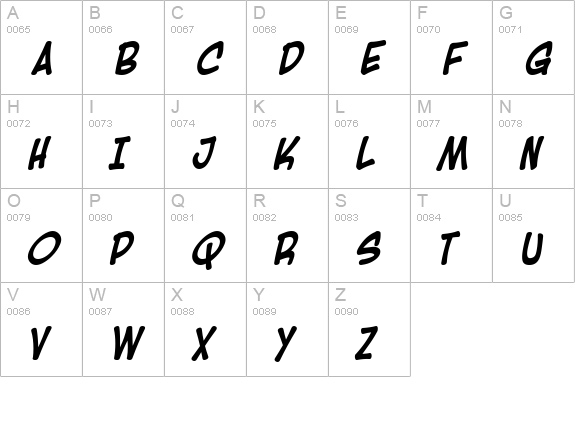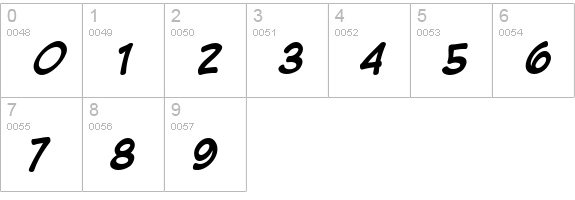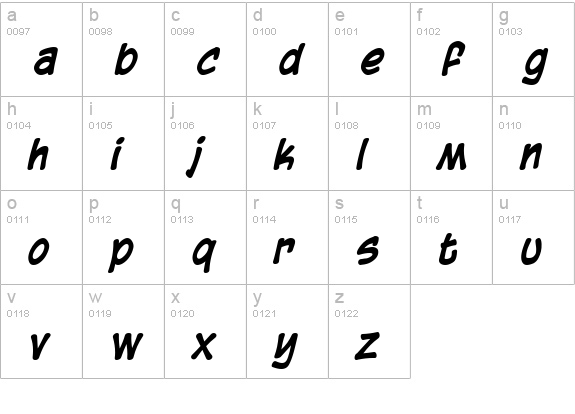
Blambot Casual BoldItalic font is a stylish and versatile typeface that exudes a sense of modernity and playfulness. With its bold and italic design, this font is perfect for creating eye-catching headlines, logos, and graphic designs that demand attention. The smooth curves and distinct letterforms of Blambot Casual BoldItalic add a touch of sophistication to any project. Best of all, Blambot Casual BoldItalic font is available for free download at FontsMarket.com. Whether you're a designer looking to add a unique flair to your work or a hobbyist seeking a fresh font for personal projects, Blambot Casual BoldItalic is a fantastic choice. Don't miss out on the opportunity to enhance your designs with this dynamic and free font!